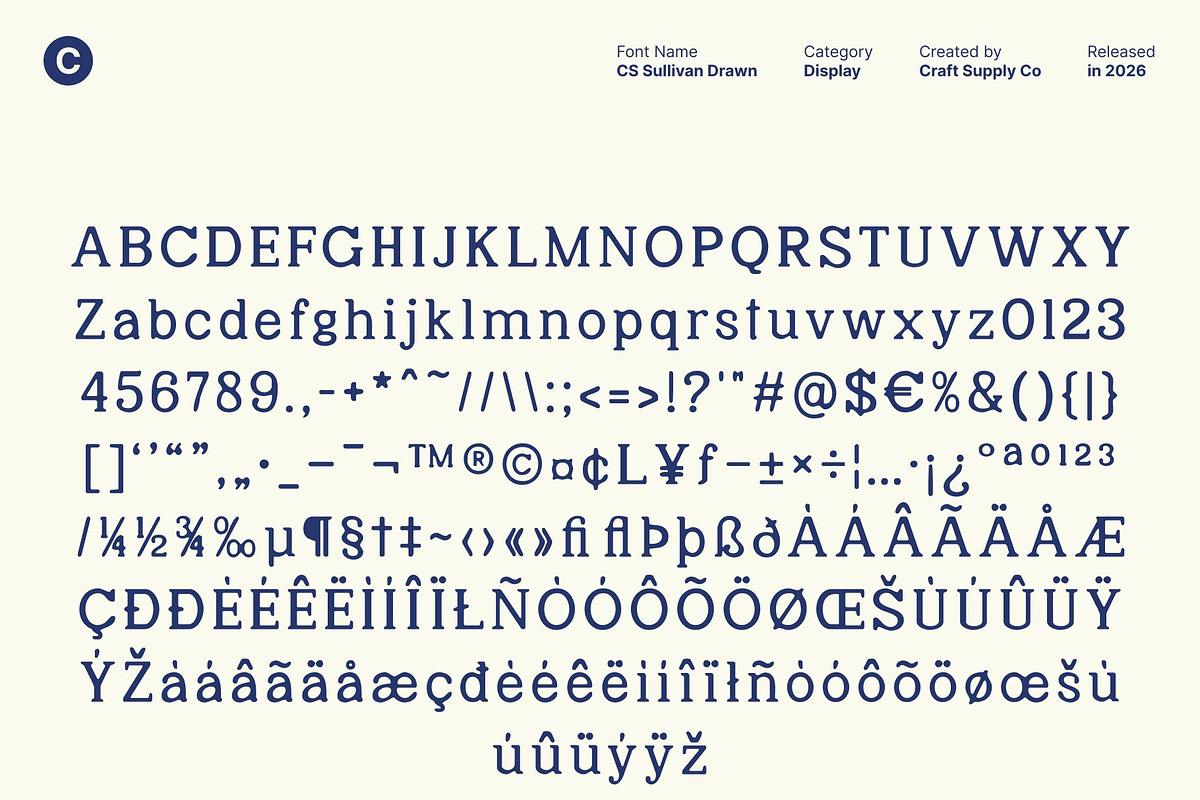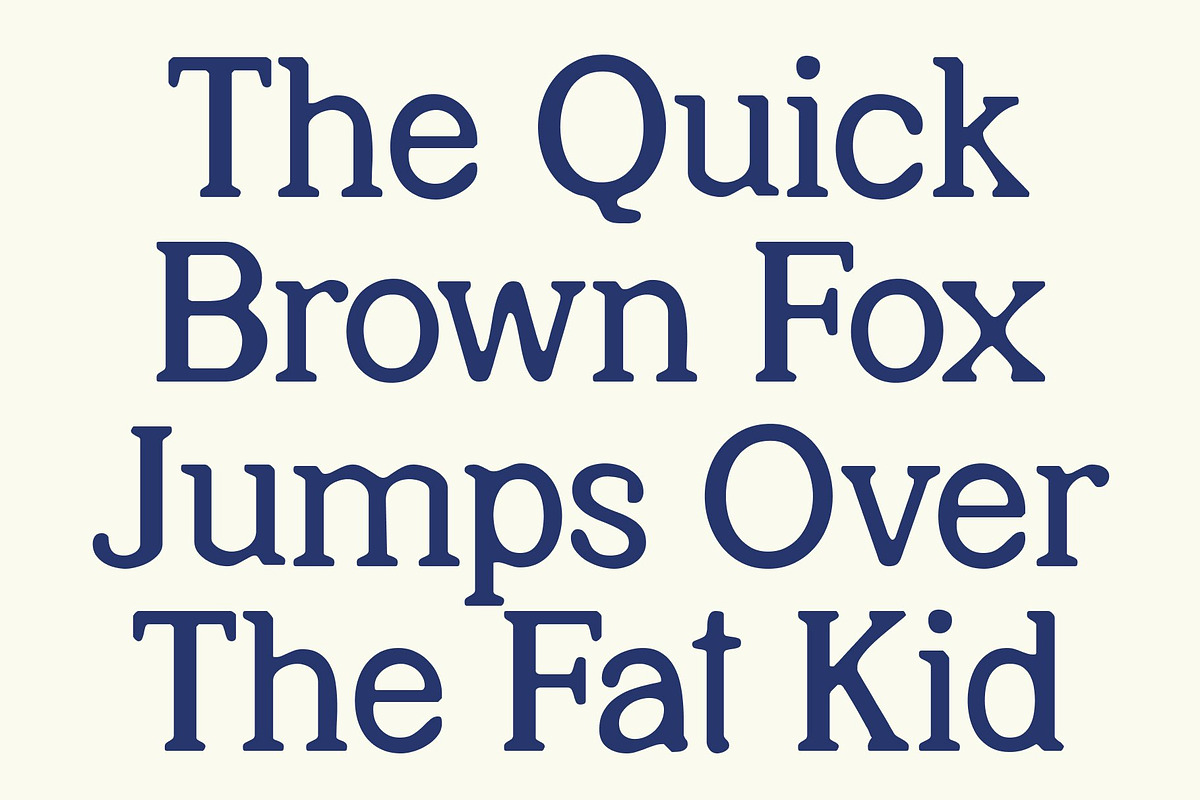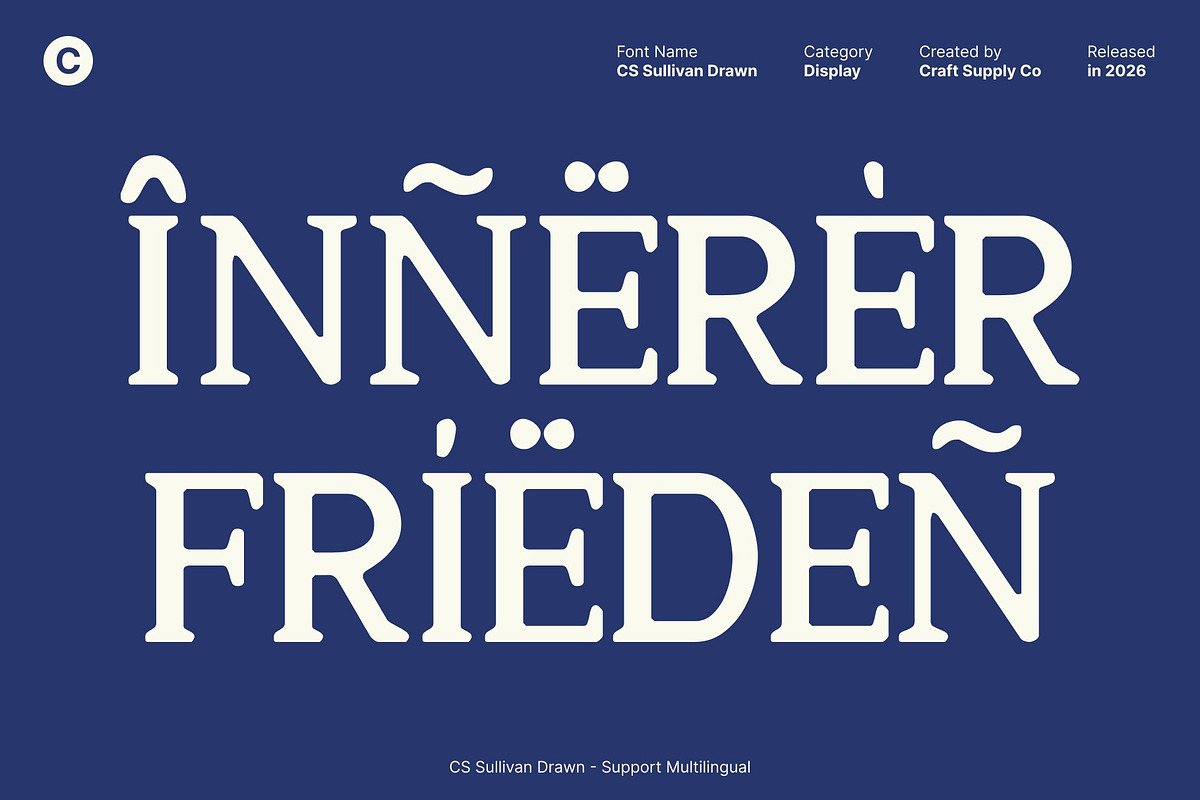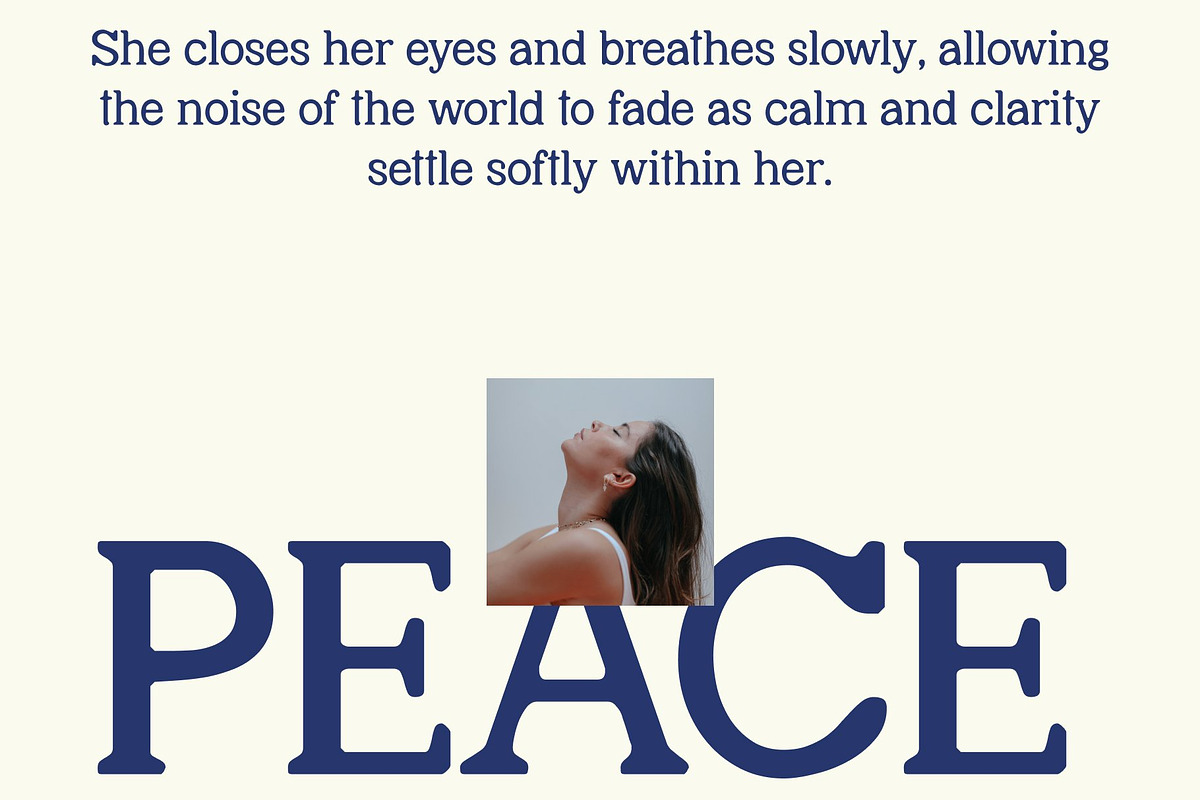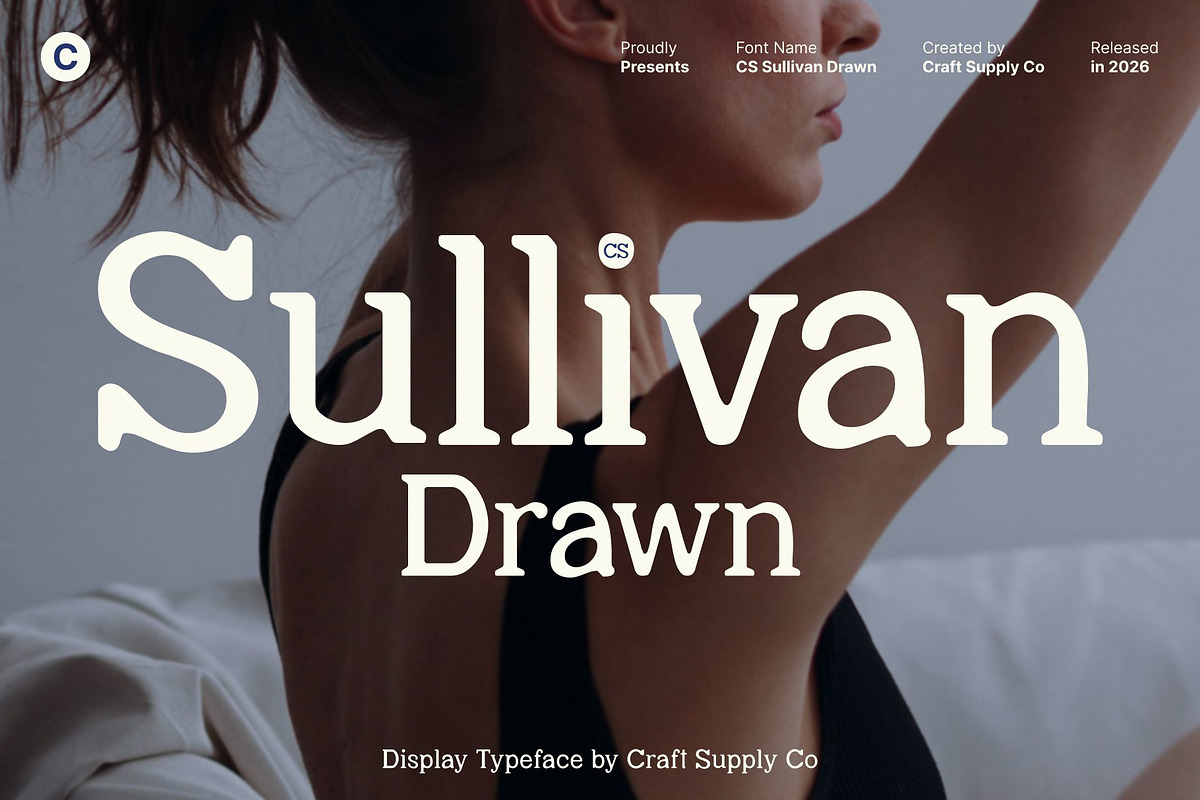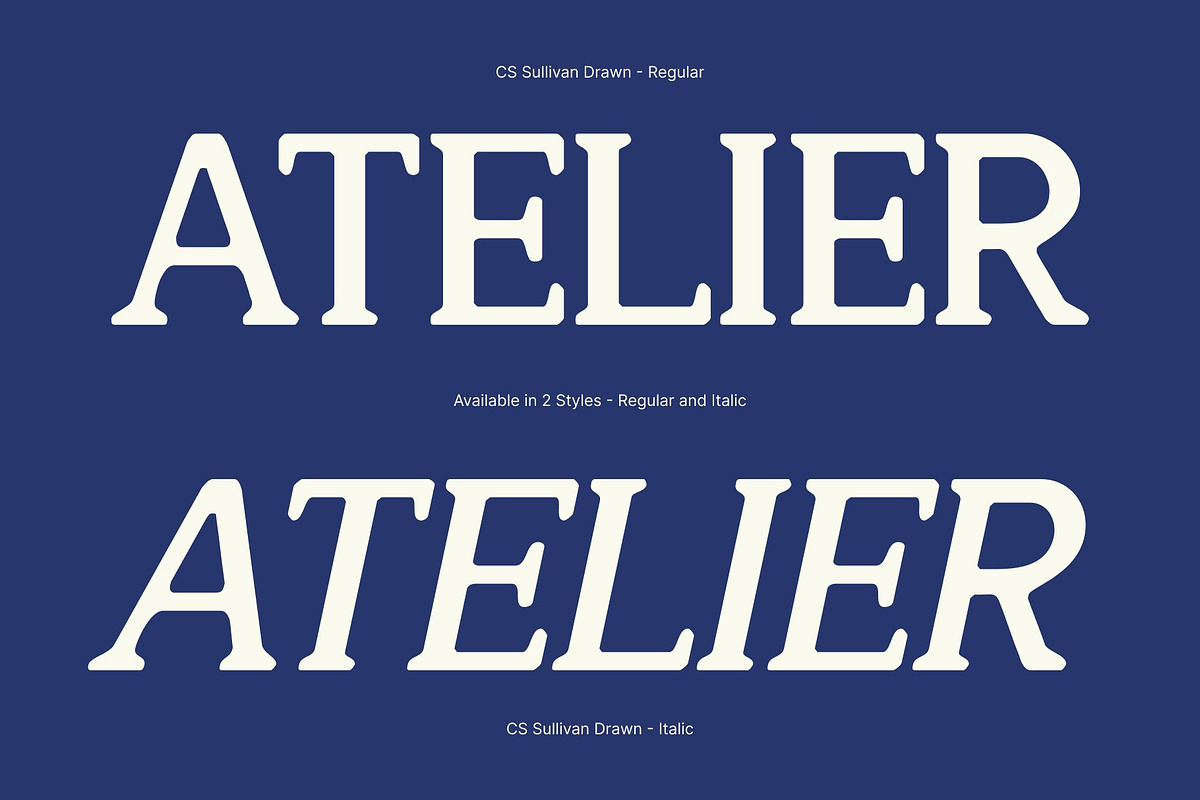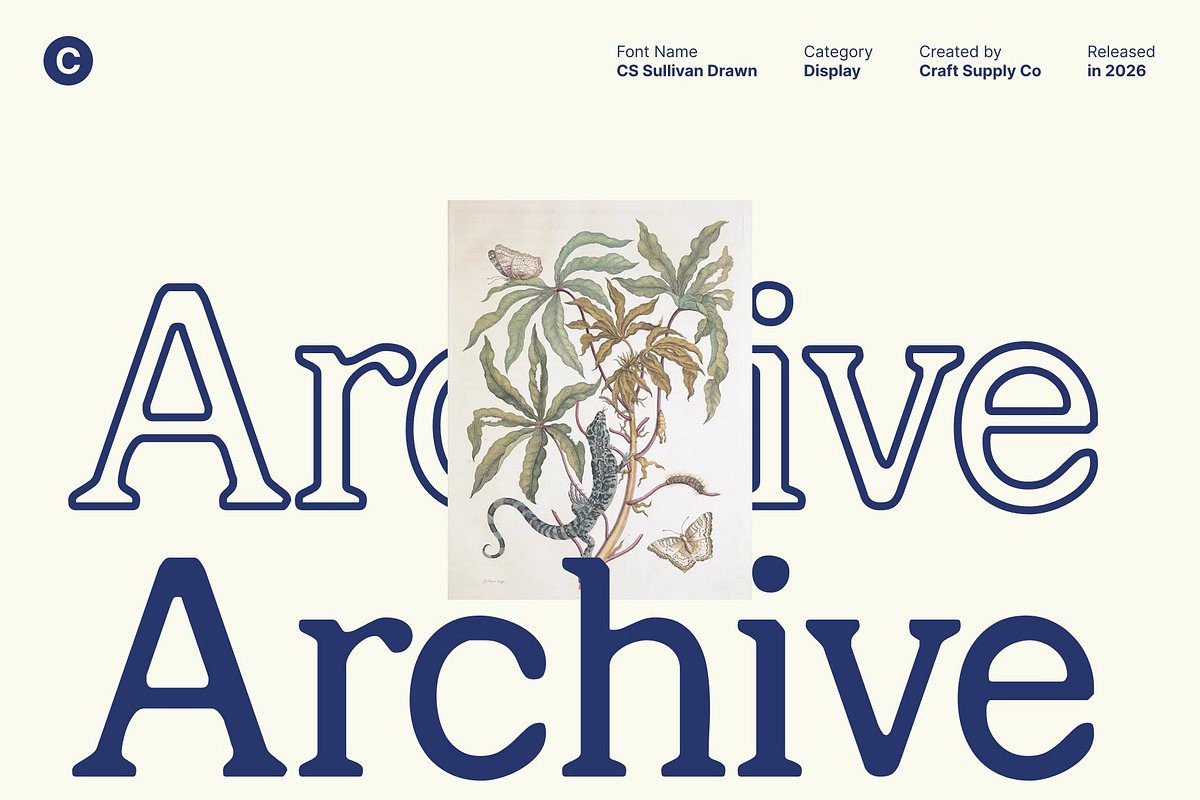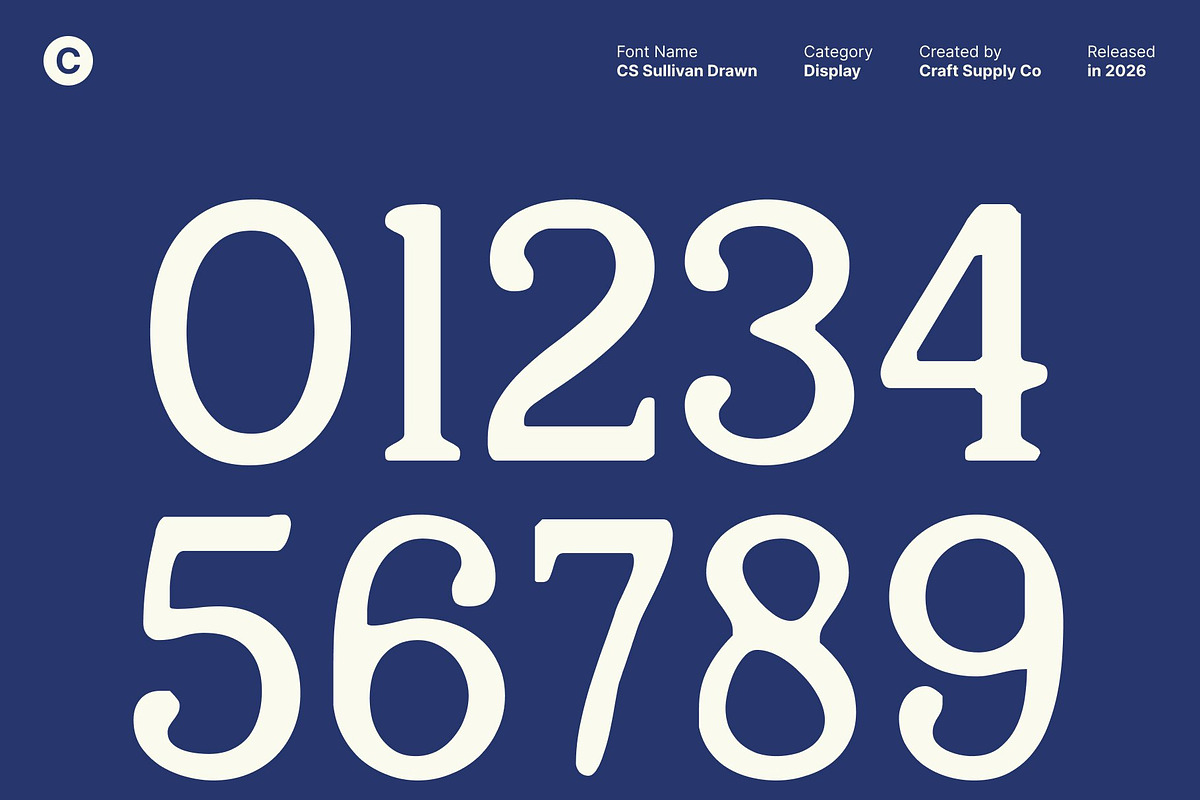
CS Sullivan Drawn
CS Sullivan Drawn – Modern Serif Where Classic Form Meets Hand-Drawn Precision
Professional Serif with Refined Character This is a modern serif font that blends professional confidence with contemporary clarity. Its clean, slender letterforms and balanced structure create a sophisticated presence, while the drawn effect introduces subtle organic texture. This combination results in a typeface that feels precise yet human, polished yet expressive.
Timeless Structure with Modern Sensibility Rooted in classic serif foundations, this font embraces modern proportions and restrained contrast. The careful balance between sharp structure and handcrafted nuance creates a harmonious typographic rhythm, ensuring excellent readability across both print and digital media while adding visual warmth and depth.
Elegant Authority for Professional and Creative Use Ideal for branding, editorial design, posters, and luxury packaging, this font adds authority and refinement to every composition. Its confident silhouette enhances fashion magazines, corporate identities, and advertising campaigns that require sophistication with a distinctive, artistic edge.
Versatile Serif for Contemporary Design With its balanced proportions and modern aesthetic, this font adapts seamlessly to minimalist layouts or expressive design concepts. The drawn details give the font individuality without overpowering its professional tone, making it a timeless choice for designers seeking elegance, precision, and creative character in one serif typeface.